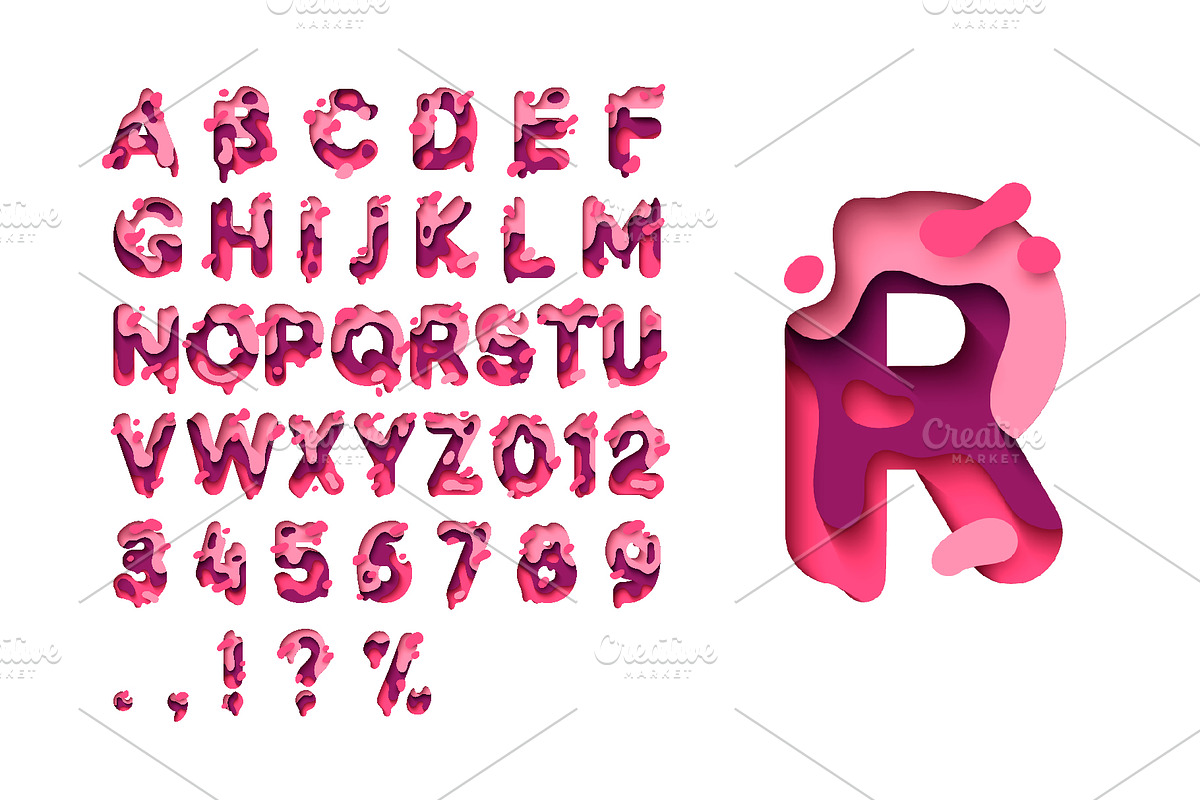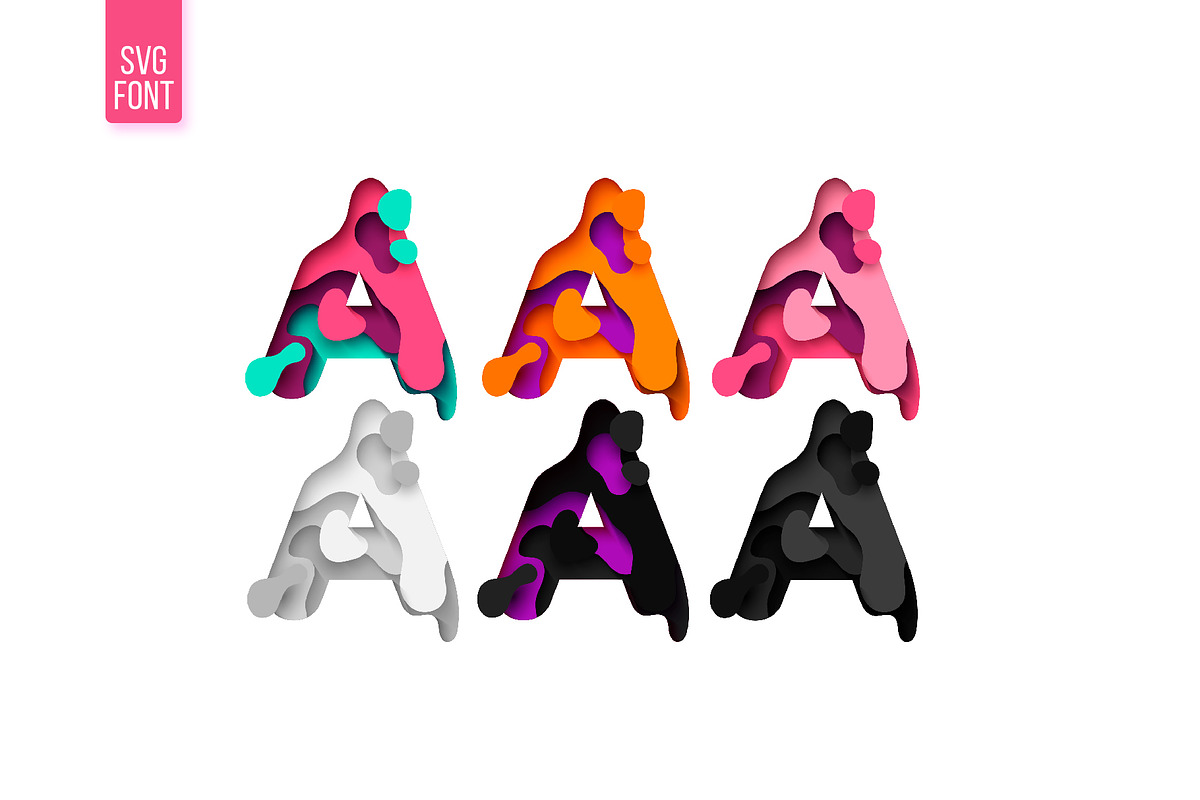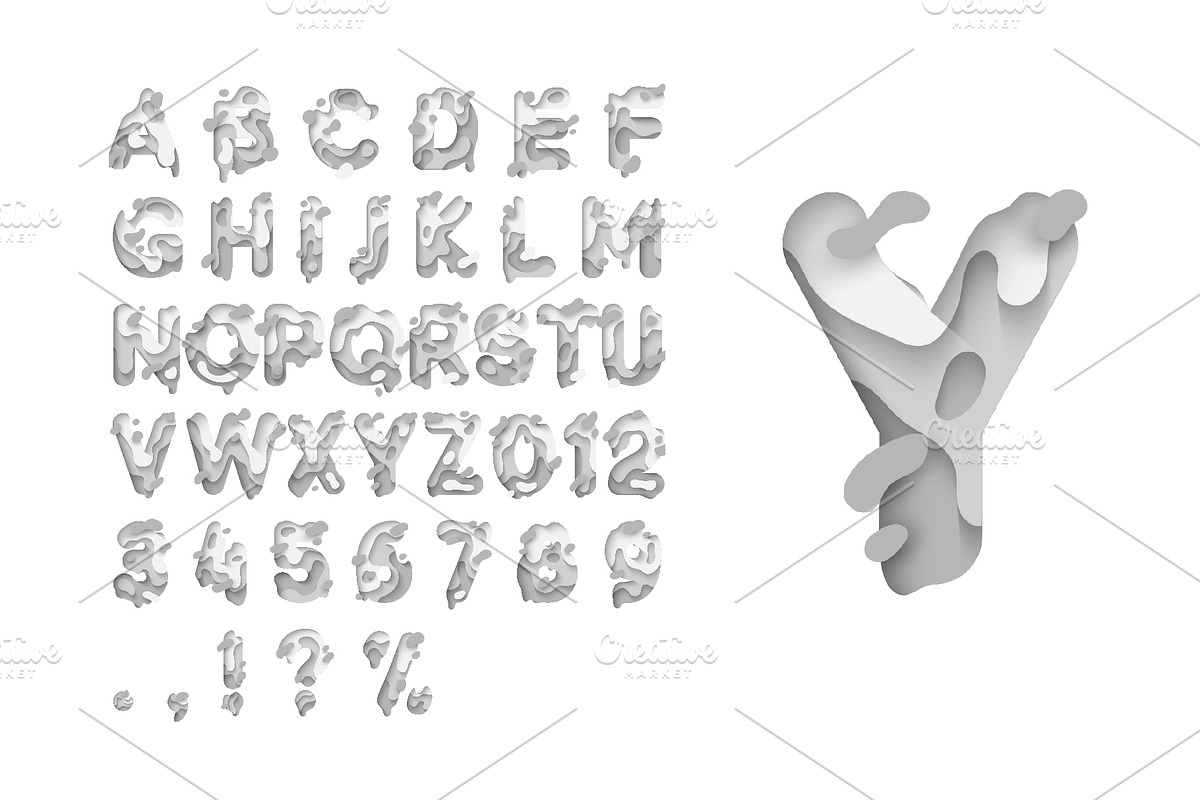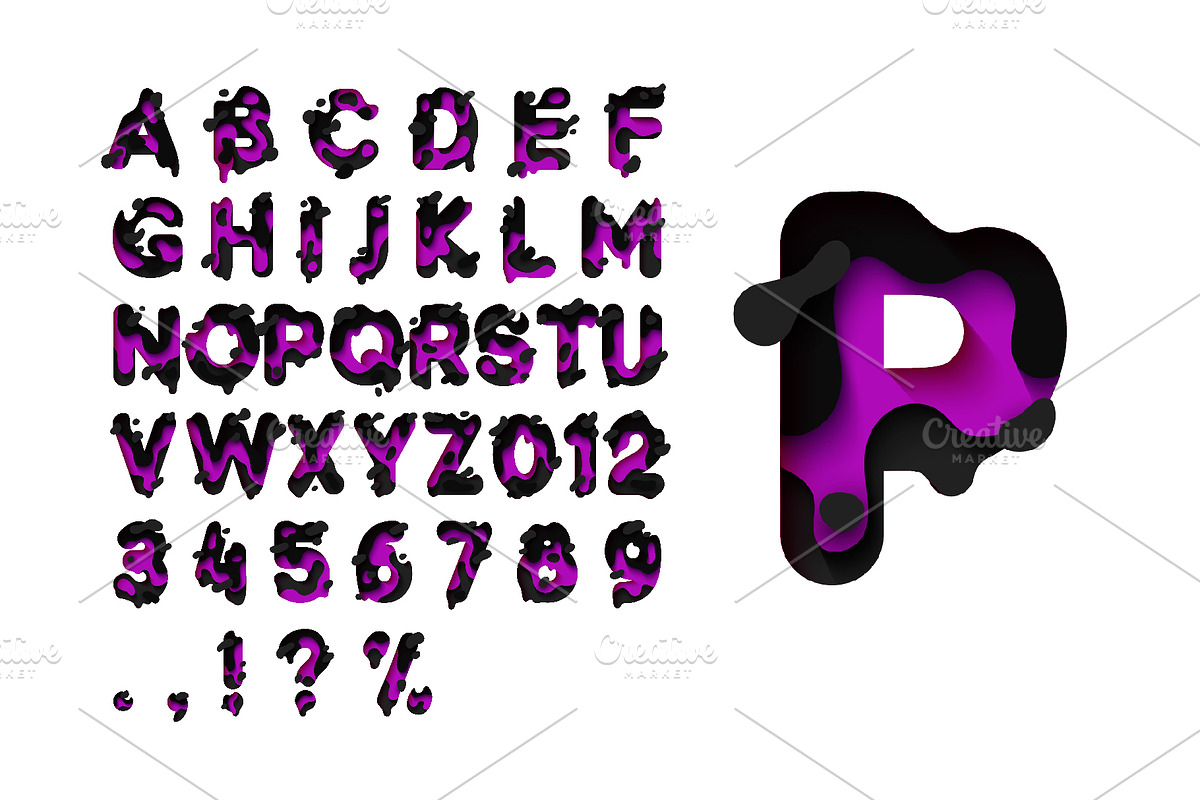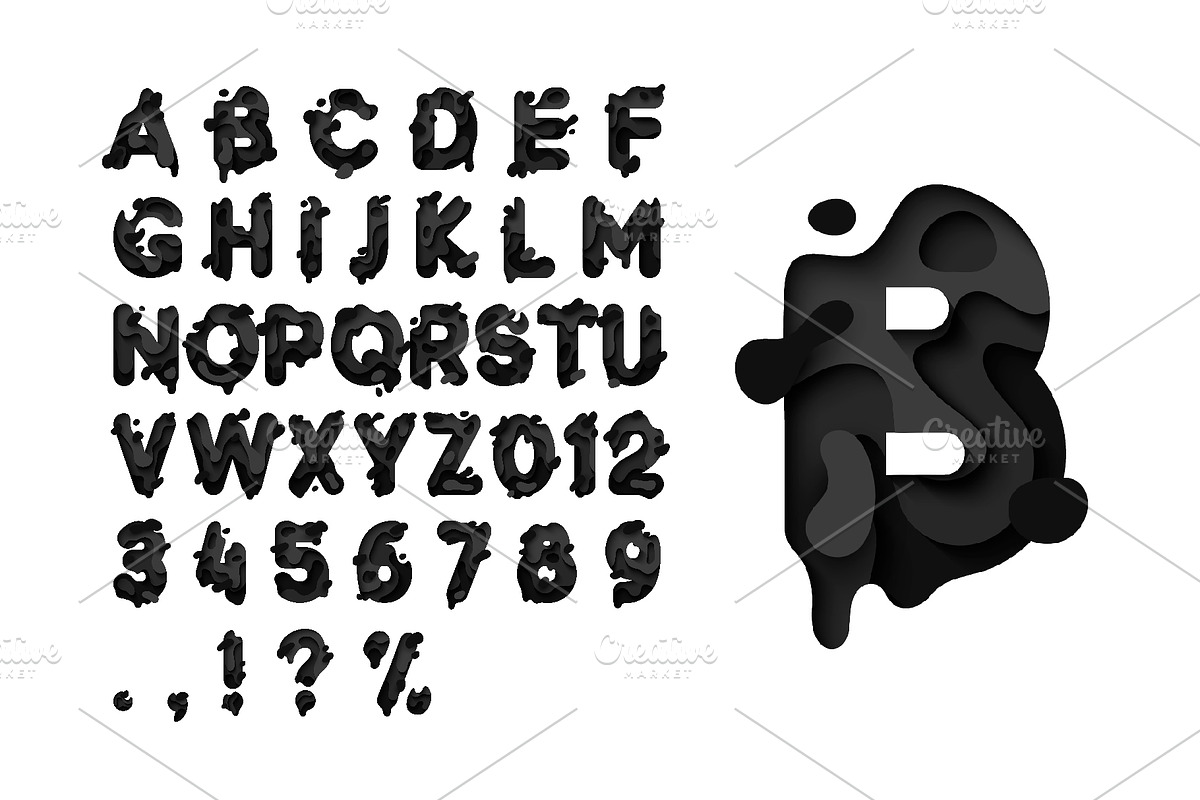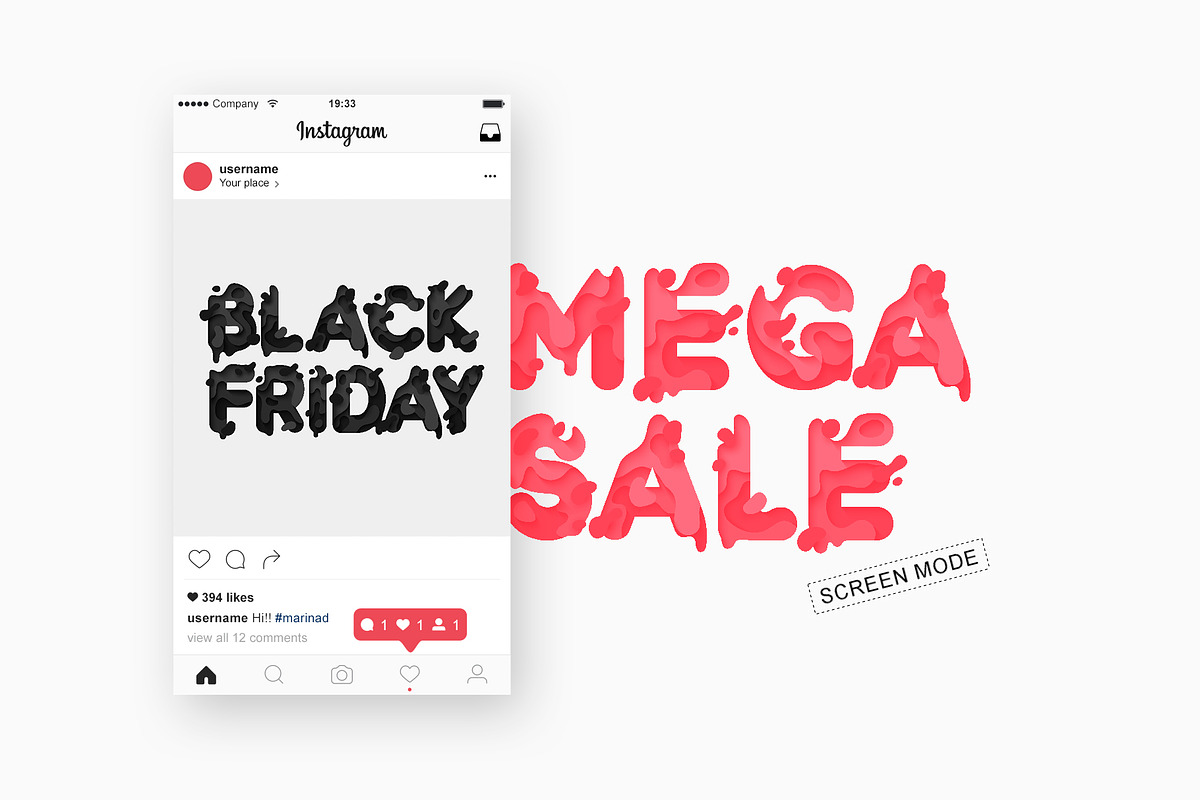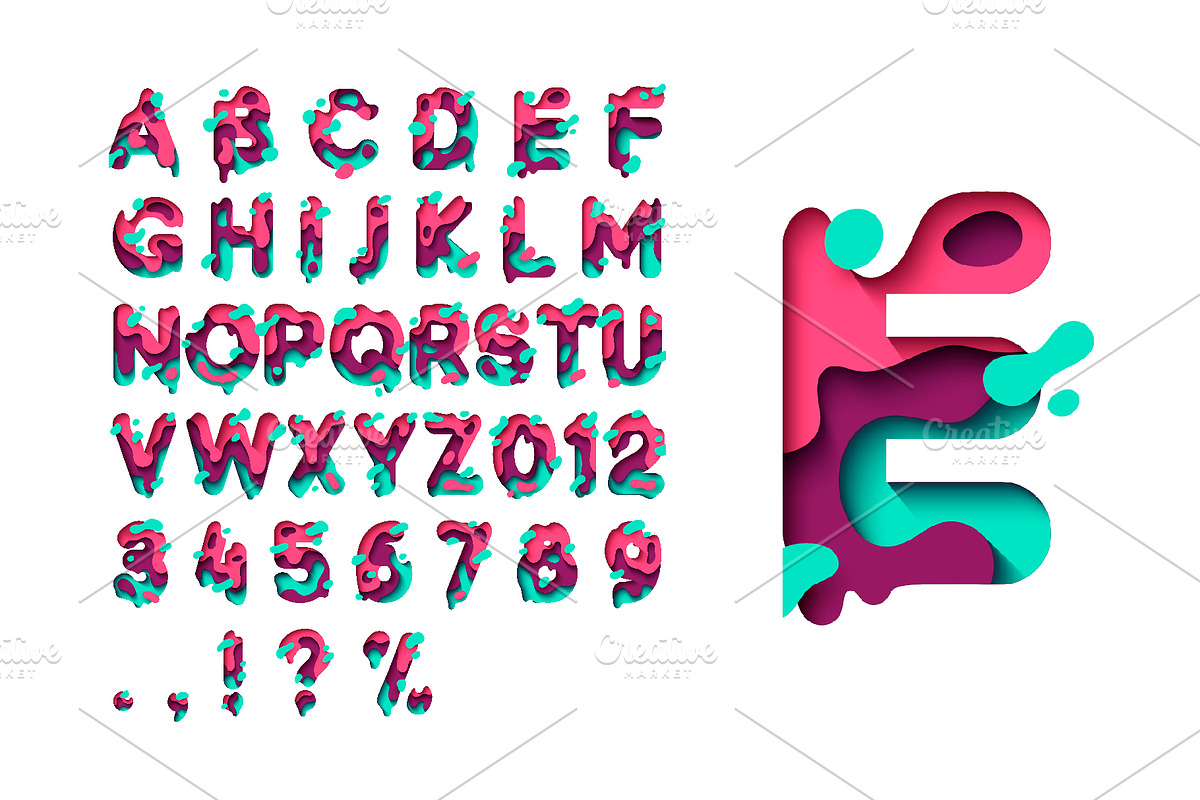
PAPER style OTF-SVG Font
Paper Font - it's fashionable.
πYes, this is a real font that can be typed from the keyboard. This font is one of the current trends in design world. Symbiosis of realistic effect of multi-layered clipping and high quality letters in fonts. Write them headlines on the covers, announce sales in Intsagram, decorate photos, turn on your imagination. The 6 best color font solutions will help you in this. And if you need a different font color, then you can easily repaint it in Photoshop with Layer effects and color overlay.
OTF SVG fonts contain raster letters of the highest quality possible with a drawn height of roughly Β±750 pixels (letter sizes vary).
Why PAPER style OTF-SVG Font is worth a look
PAPER style OTF-SVG Font by Modern vector fits naturally into Branding, posters, packaging, typography.